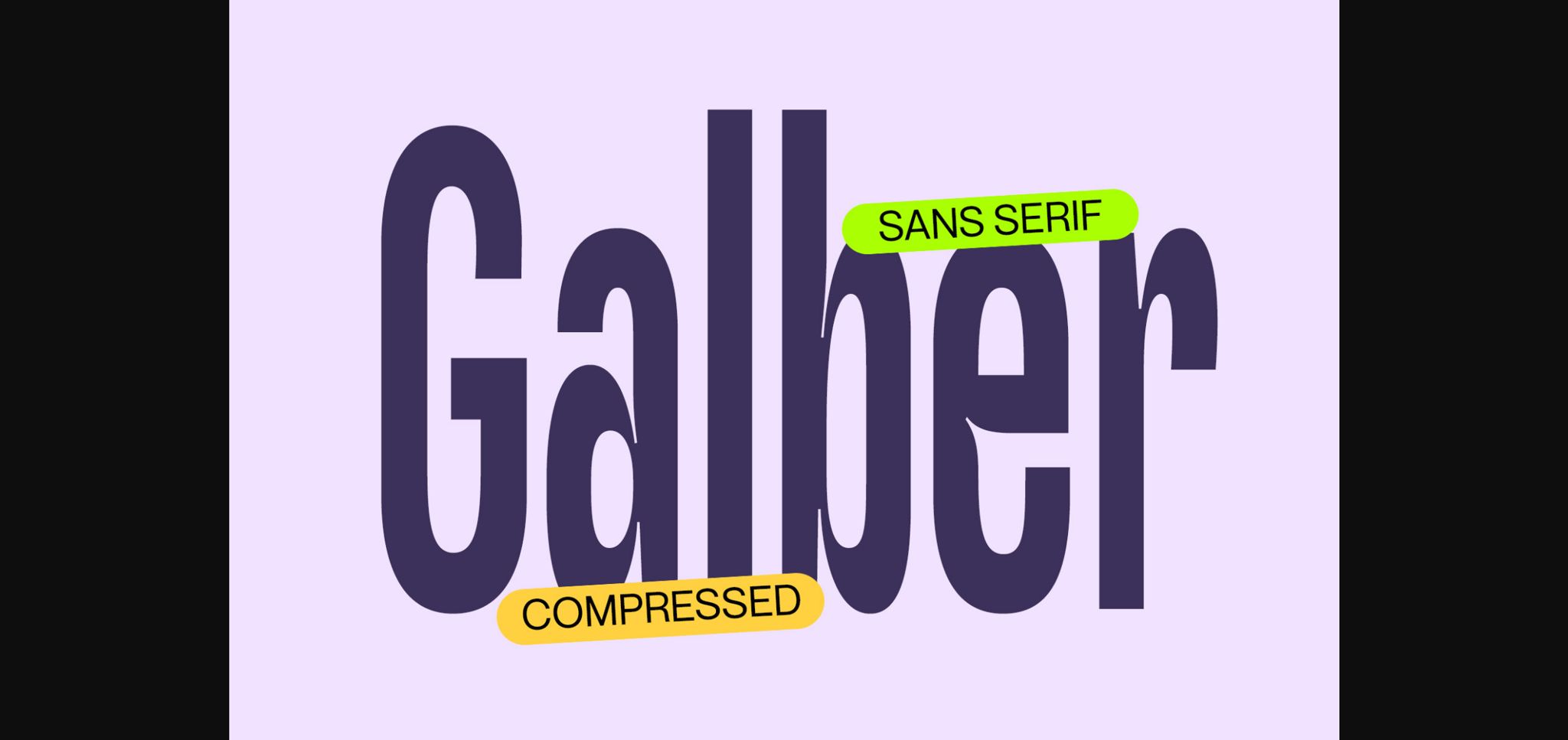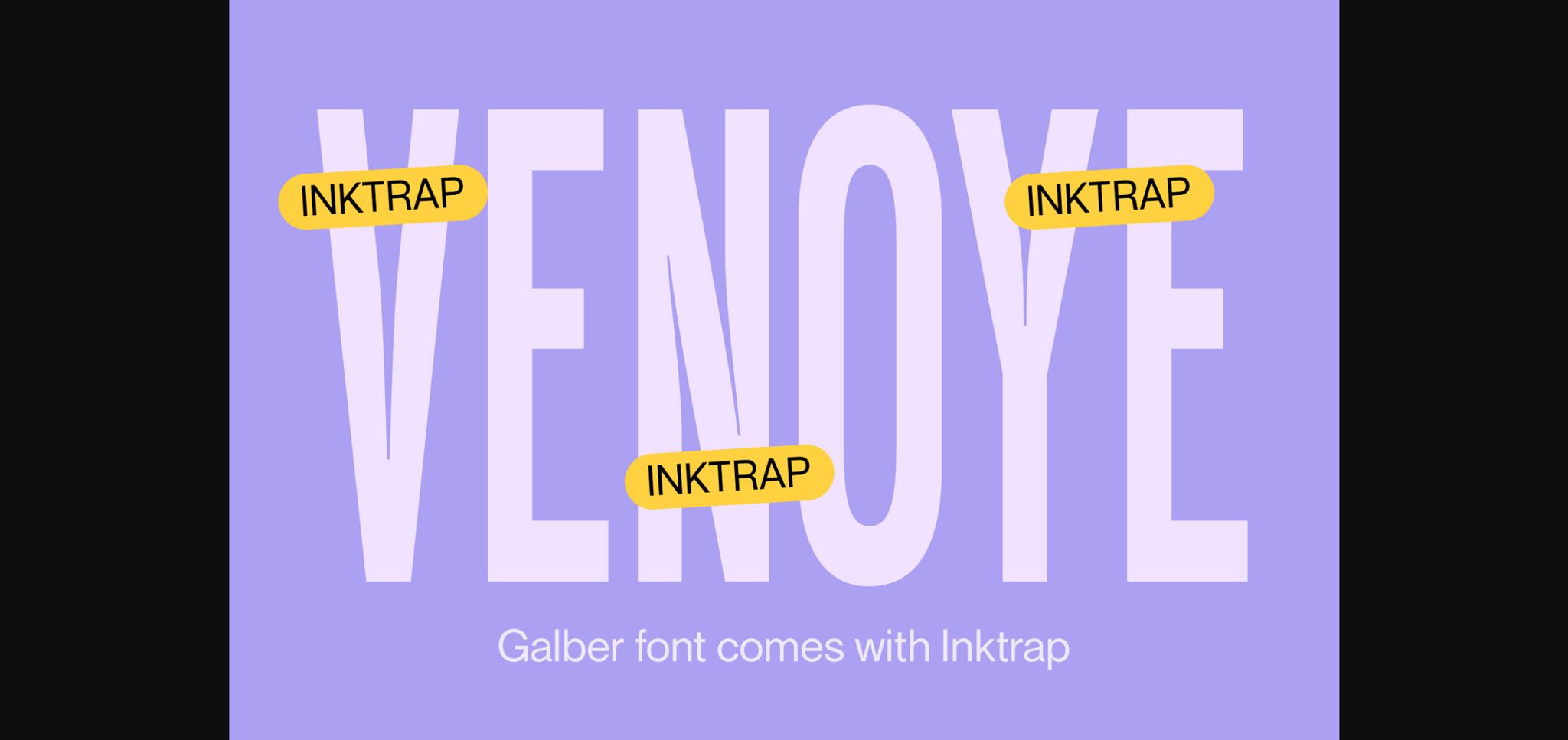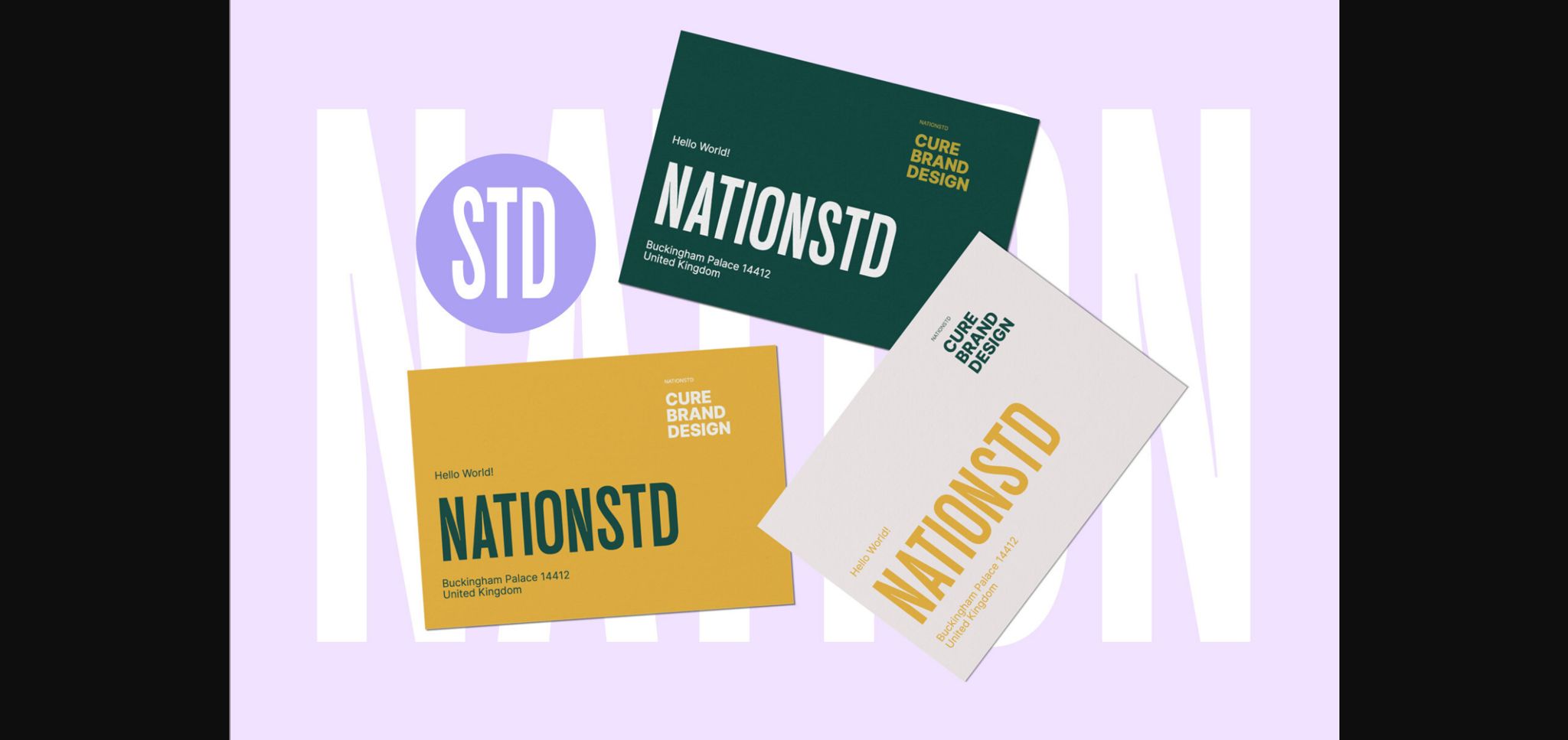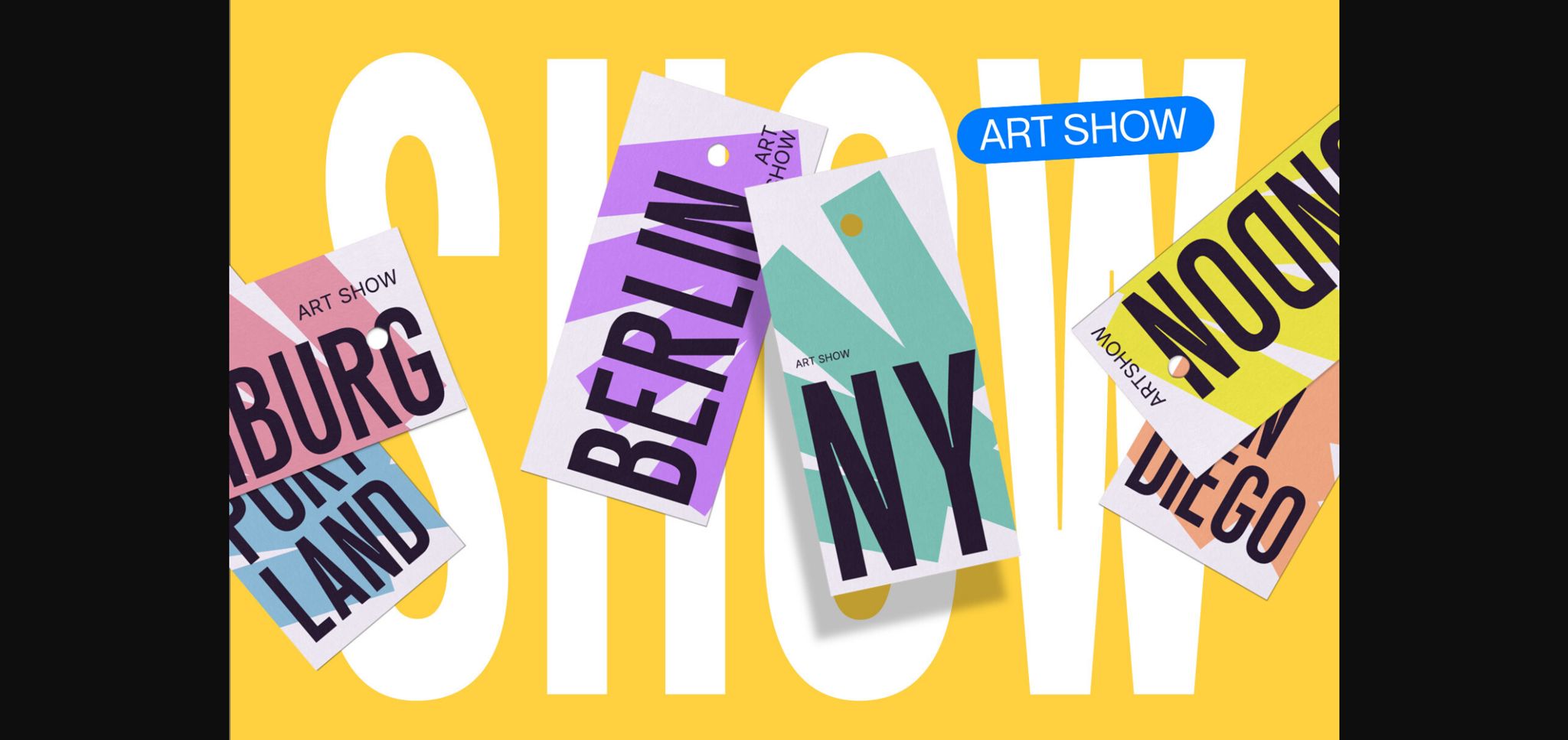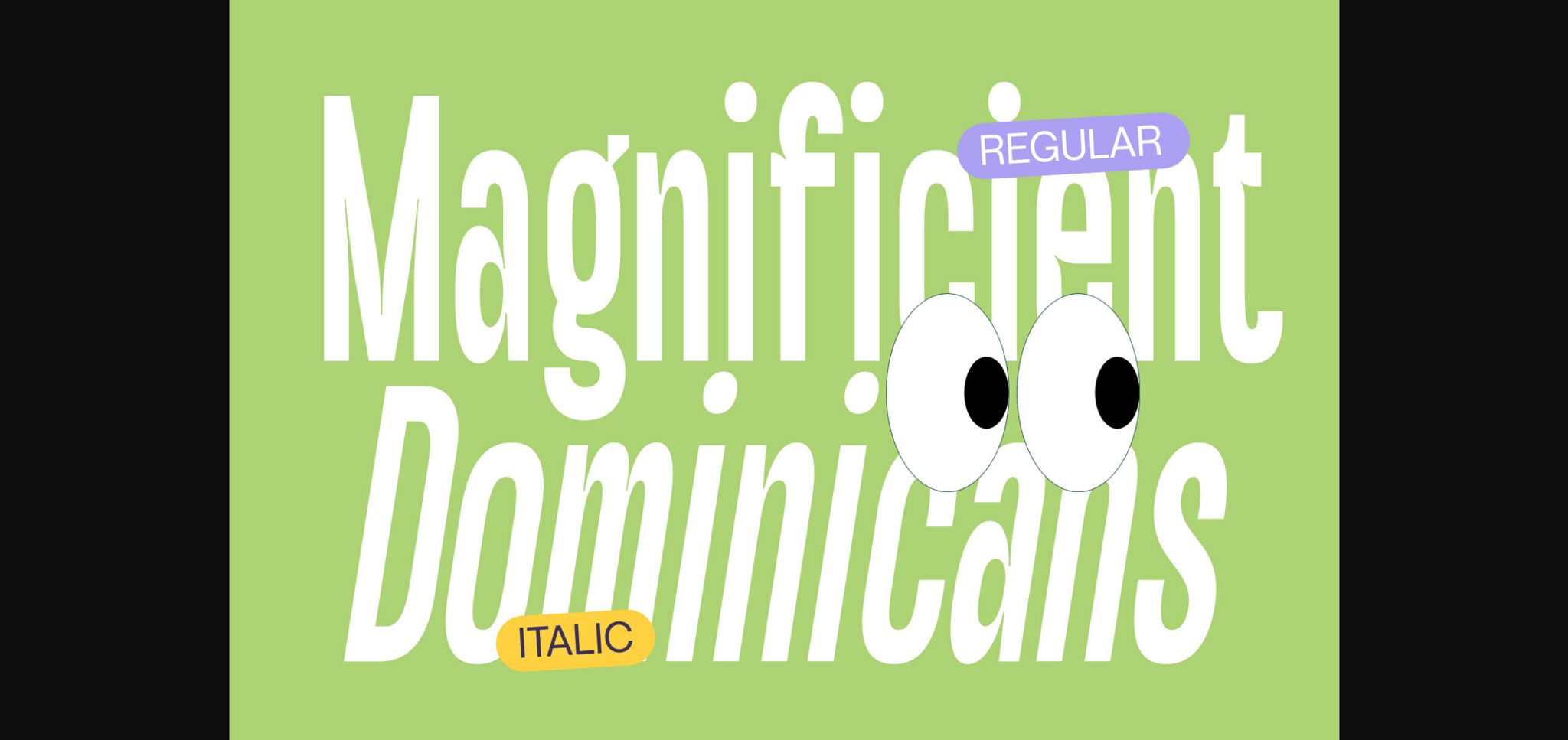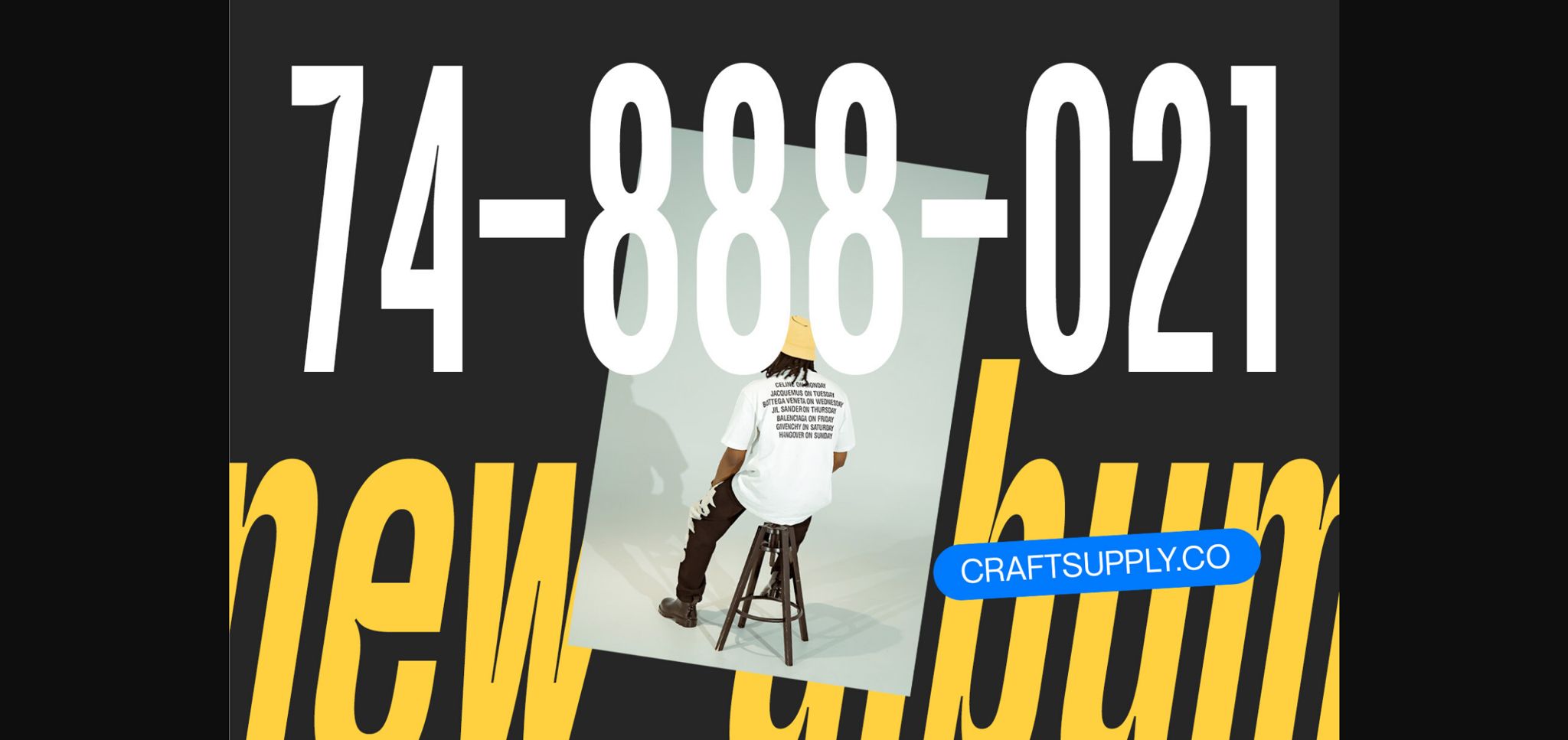
Galber Font
About Galber Font
Introducing Galber – Compressed Sans Serif: A commanding typeface that captures the eye with its bold, condensed design. With its impactful lines and modern allure, Galber adds a strong touch to your projects. Elevate your designs with Galber’s assertive style, making a striking statement that simply can’t be ignored.
This typeface is ideal for greeting cards, packaging, brand identity, posters, or any purpose to make your design project look eye-catching and trendy. Feel free to play with this typeface!